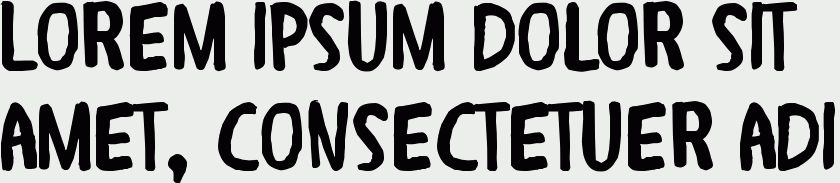
Alboroto
Alboroto a typeface created by hand and then scanned remains with the font style "Mari & David" in this source also contains many characters as the Cyrillic alphabet, also contains a set of ornaments.